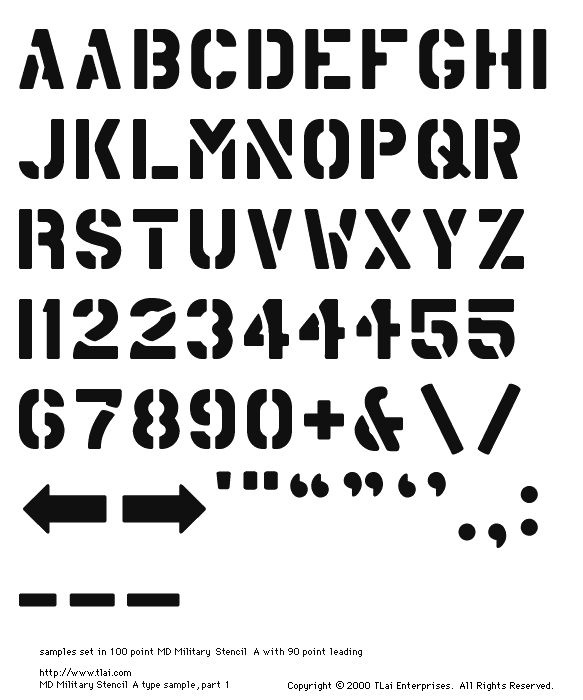
Military Style Fonts On Cricut. Font style any bold italic negative oblique outlined regular strikeout underscore. Military fonts are used in designs that need to evoke a sense of strength and discipline.
They May Also Look Worn And Weathered From Combat.
Here Are A Few Of My Favorites.